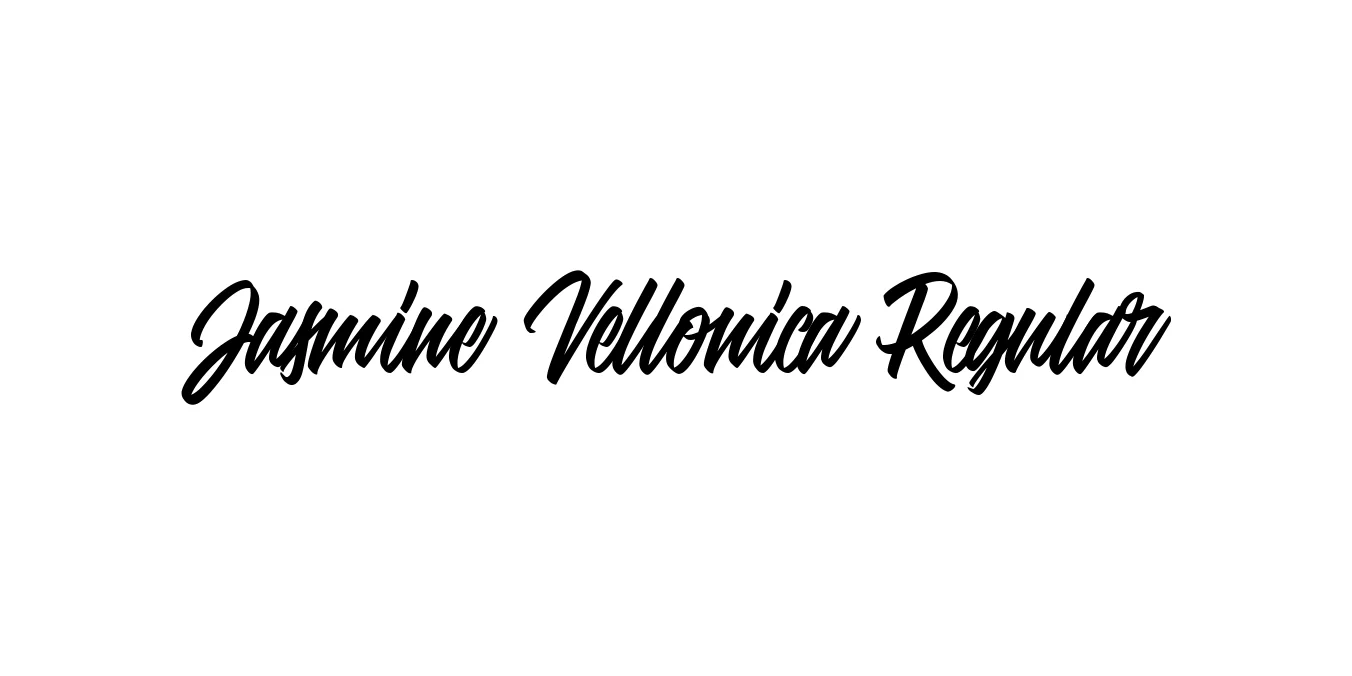
Jasmine Vellonica Regular
Jasmine Vellonica Regular is a modern and elegant script typeface characterized by its flowing cursive strokes and sophisticated charm. It features delicate ligatures and smooth transitions, making it a popular choice for designers seeking a touch of luxury and femininity in their typographic compositions.
This font is highly versatile, often utilized in high-end branding projects, wedding invitations, and editorial layouts. The balance between its contemporary style and timeless calligraphic roots ensures that it remains a go-to option for projects requiring a graceful and authentic handwritten aesthetic.
Jasmine Vellonica Regular Best Uses
Perfect for creating romantic and elegant invitation suites.
Ideal for logo designs for fashion, beauty, or lifestyle brands.
Great for aesthetic quotes and stylish Instagram graphics.
Adds a personal and sophisticated touch to letterheads and greeting cards.